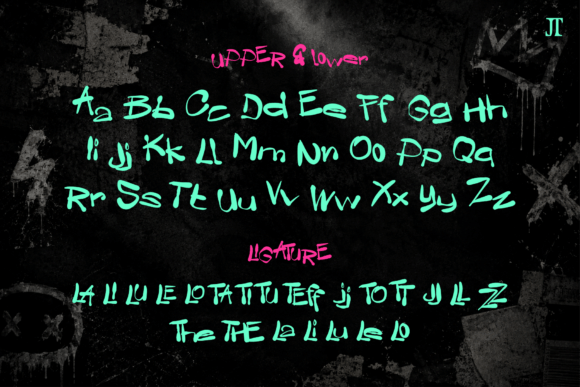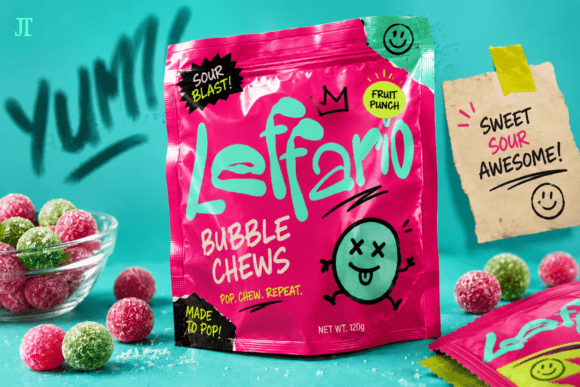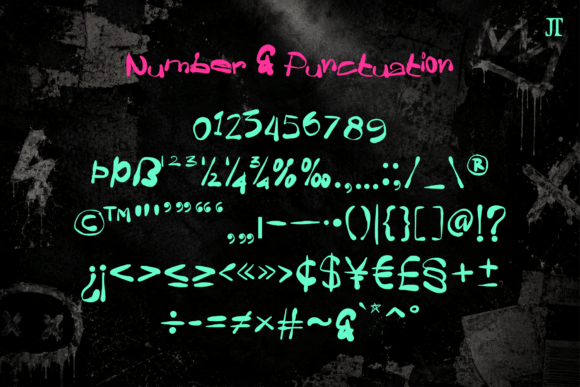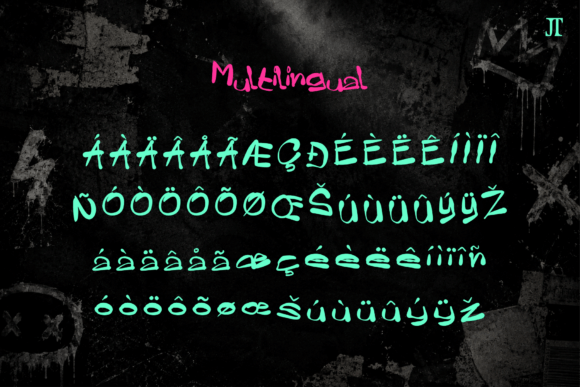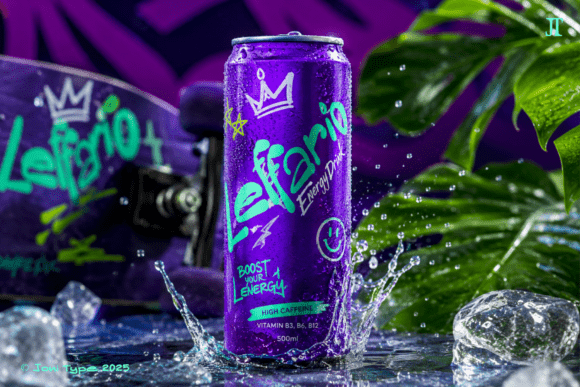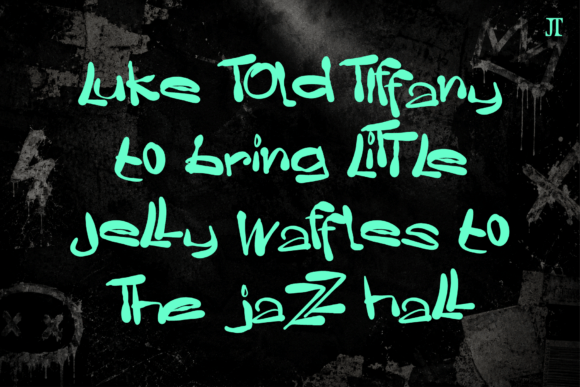
Introduction to Leffario Font
As a designer, have you ever found yourself in a creative rut, staring blankly at a blank canvas or screen, searching for that perfect font to elevate your project? It’s a feeling we’ve all been there. But what if I told you that the key to unlocking your next big idea lies in the raw, unbridled energy of urban graffiti culture? Enter Leffario Font, the bold street-marker display font that’s about to revolutionize the way you approach your next creative project.
With its imperfect marker strokes, playful curves, and expressive outlines, Leffario Font is the perfect design resource for anyone looking to add a touch of modern doodle aesthetic to their work. Whether you’re a seasoned pro or a student just starting out, this high-quality font is sure to bring a loud urban attitude and sweet chaotic vibes to your next design.
Key Features of Leffario Font
- High-quality design resource ideal for creative projects, including graphic design, digital art, and web development.
- Unique and stylish design makes it an excellent choice for creative projects that require a touch of sophistication and elegance.
- Designed to be highly legible and readable, making it perfect for use in body text, headings, and titles.
Honest Review: Leffario Font
One of the standout features of the Leffario Font is its versatility. It comes with a transparent background, allowing designers to easily combine it with other design elements. The font is also highly customizable, making it suitable for a wide range of creative projects.
Here are some of the things that work well with the Leffario Font: ✨
- High-quality design: The font is well-designed and looks professional.
- Transparent background: This feature makes it easy to combine the font with other design elements.
However, there are some limitations to consider: ⚠️
- Limited font styles: The Leffario Font comes in a limited number of styles, which may not be suitable for all projects.
- No bold or italic versions: The font does not come with bold or italic versions, which may be a drawback for some designers.
How to Use Leffario Font
Tips for Getting the Most Out of Leffario Font
Experiment with different font sizes and styles to create visually appealing text effects. Use the font’s high-quality features to create stunning text effects. Combine the Leffario Font with other design elements, such as images and graphics, to create a unique and creative project.
Common Use Cases for Leffario Font
The Leffario Font is ideal for creative projects, such as logos, business cards, and brochures. It’s also great for presentations, documents, and websites that require a high-quality and stylish font. Use the font’s transparent background feature to add a touch of elegance to your design.
Is the Leffario Font suitable for large-scale designs?
The Leffario Font is designed to be highly scalable, making it suitable for large-scale designs, such as billboards, posters, and signage. The font’s high-quality design ensures that it remains legible and visually appealing at various sizes and resolutions.